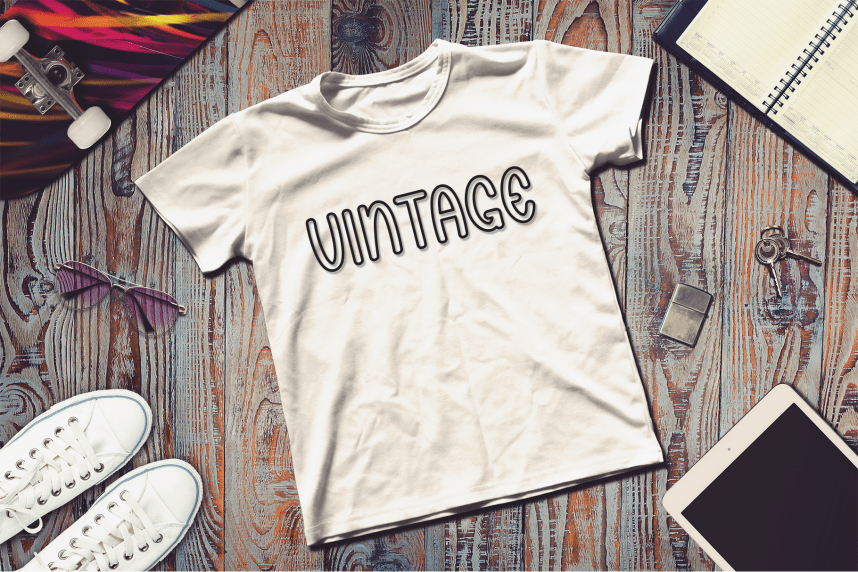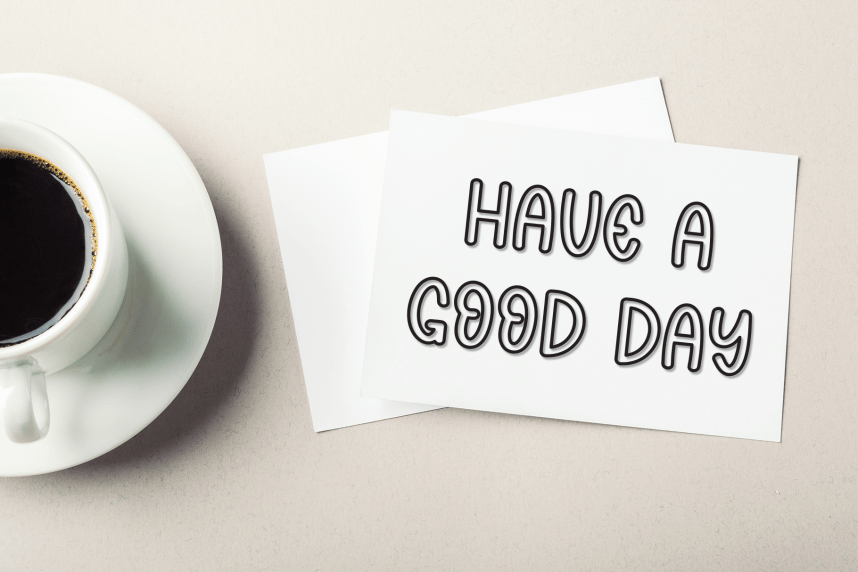
Skinny OutBond – Creative Style Font
Skinny OutBond – Creative Style Font is a sweet and friendly handwritten display font. Cute and fun, this font is ideal for writing wedding invitations, cards, or any other design that might need a playful touch!